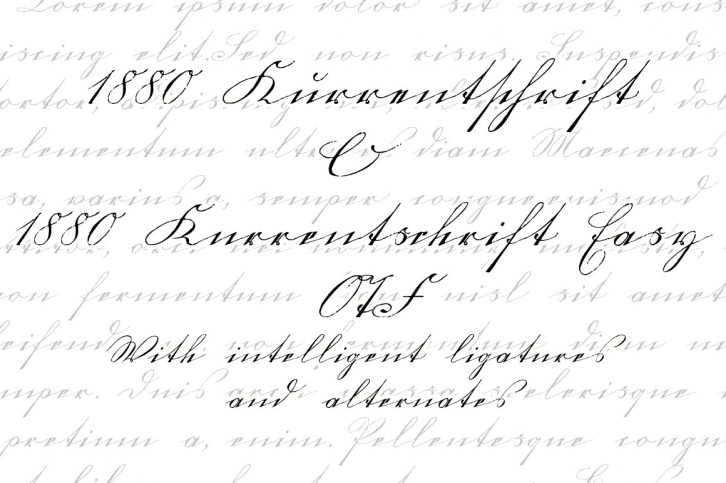
This font was created inspired by the old form of the so called "Kurrentschrift" German handwriting, based on late medieval cursive. It is also known as "Alte Deutsche schrift" ("Old German script").
It was taught in German schools until 1941, when Adolf Hitler decided to forbid it.
As it is a little hard to read, we are proposing here two versions : the "pure" Kurrentschrift, and an adapted "Easy" one, with simplified difficult characters.